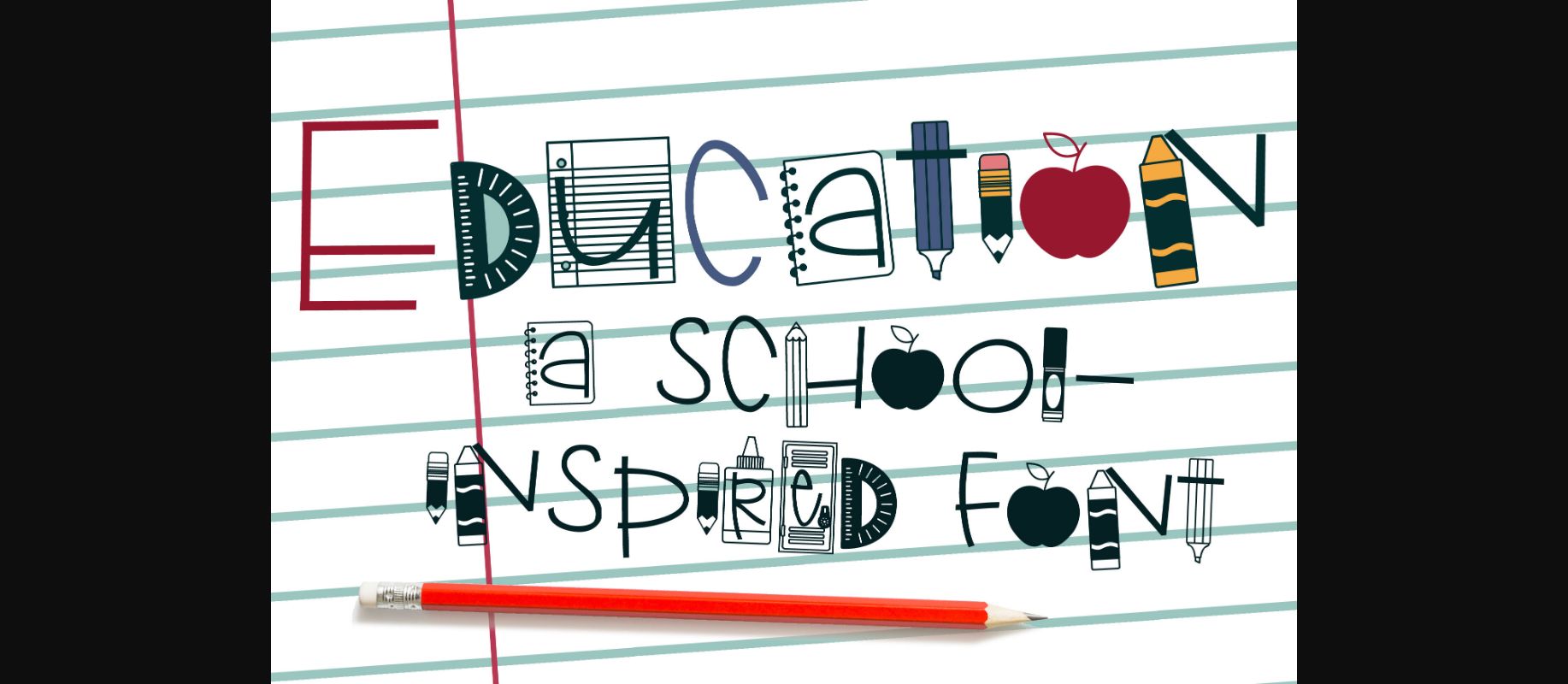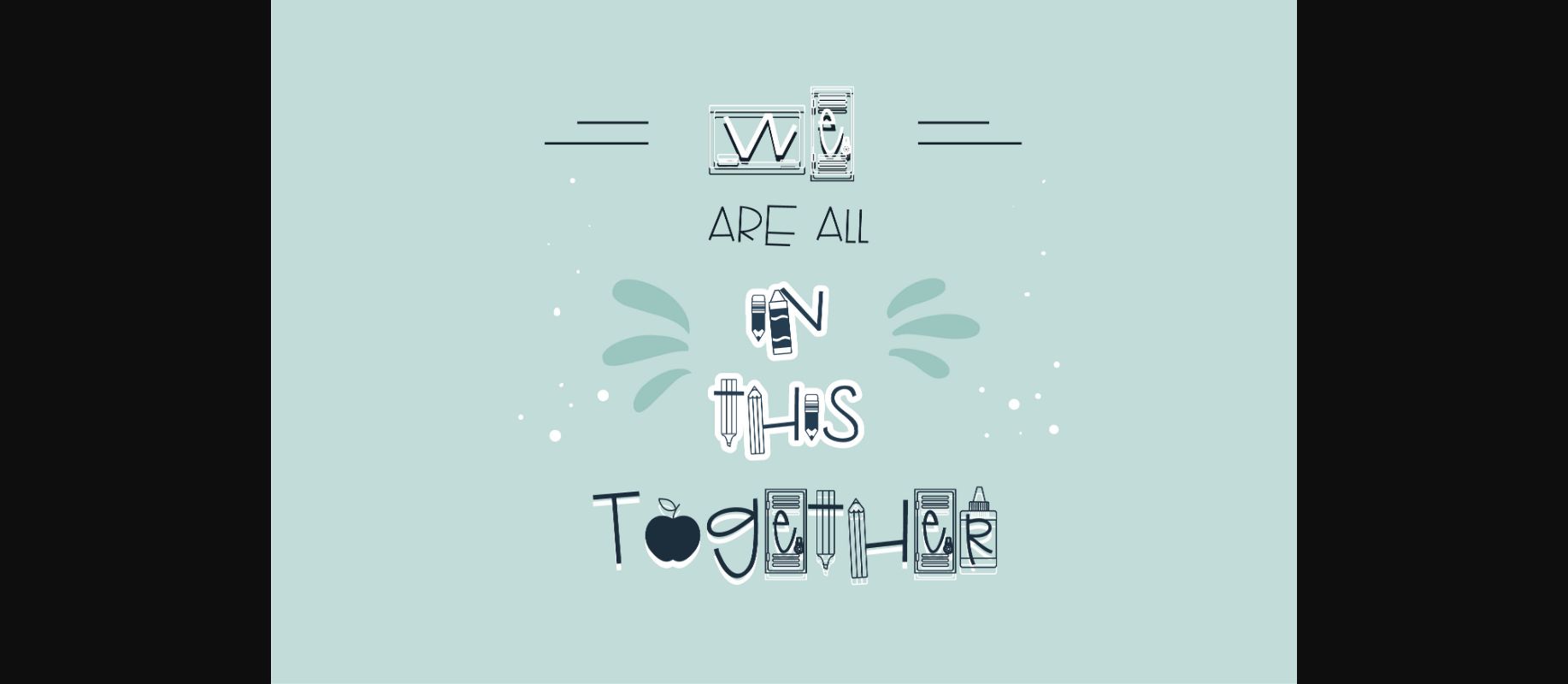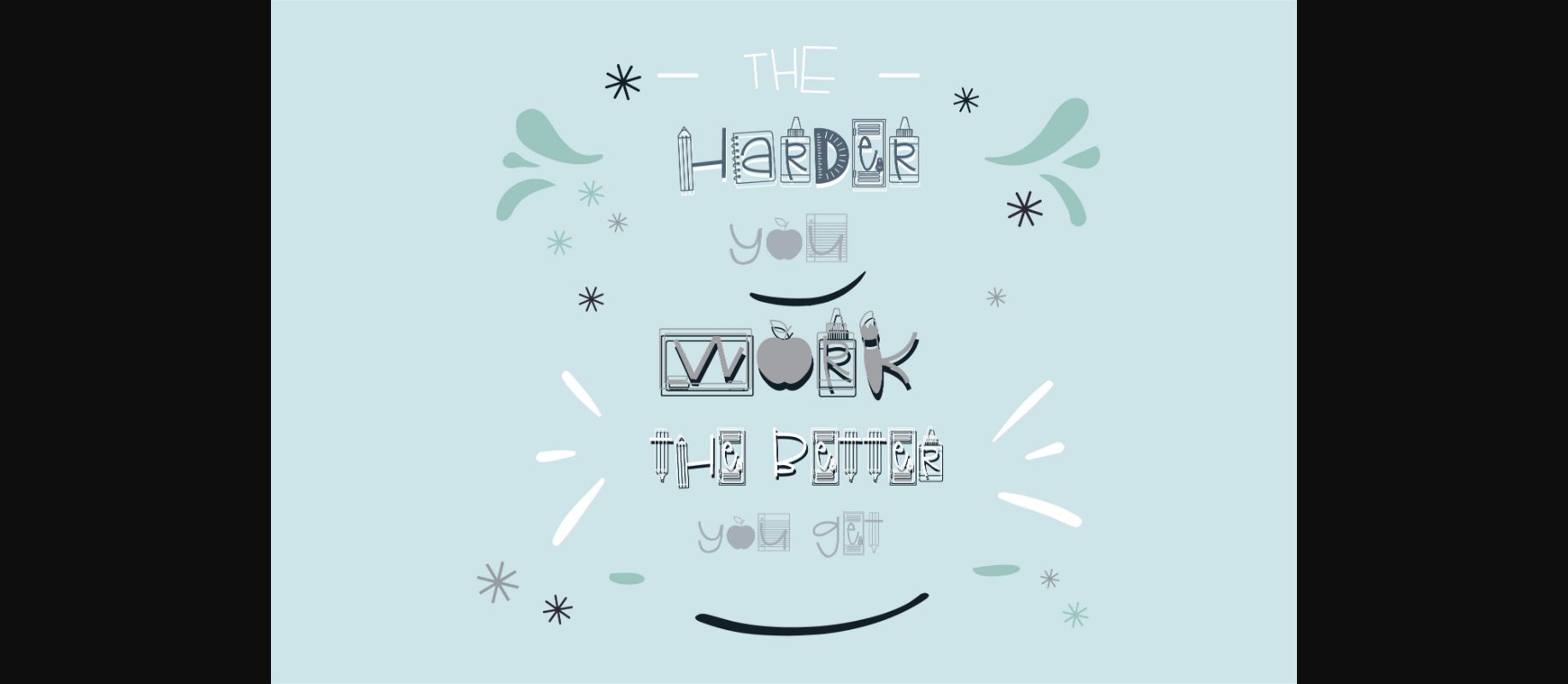
About Education Font
Education is a handmade decorative font featuring school-like elements throughout. The thin letters beautifully combine with the icons creating a lovely playful look!